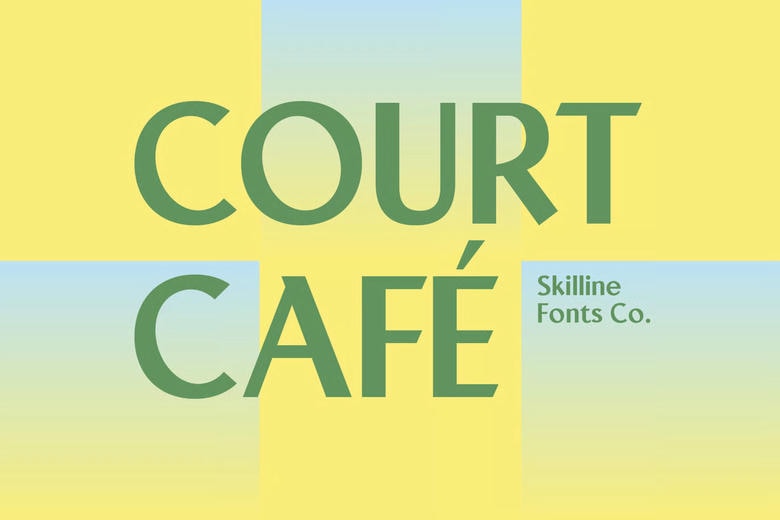
Court Cafe Font
Court Cafe Font is a geometric sans serif with balanced proportions and smooth curves. Its minimalist style and subtle humanist details give it a modern, approachable look.
This typeface supports multiple languages, includes full punctuation, and covers extended Latin characters. Its crisp look and soft details make it feel timeless and modern, while its style works well in many settings.
Court Cafe Sans Serif Font